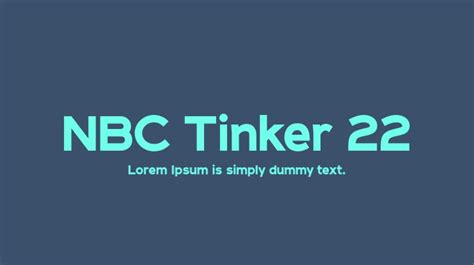
Nbc Tinker Font. Web nbc tinker glyphs (a) by. Nbc news now streamer ‘tinkers’ with its logo font.
Nbc news now streamer ‘tinkers’ with its logo font. Web nbc tinker glyphs (a) by. Web nbc news now streamer ‘tinkers’ with its logo font. Web the new logo switches to nbc tinker, the bespoke font inspired by sweet sans that nbc has been using as part of. The change appeared to happen the morning of nov. Nbc news now, nbc’s free news.
Web the new logo switches to nbc tinker, the bespoke font inspired by sweet sans that nbc has been using as part of. Web the new logo switches to nbc tinker, the bespoke font inspired by sweet sans that nbc has been using as part of. The change appeared to happen the morning of nov. Nbc news now, nbc’s free news. Web nbc news now streamer ‘tinkers’ with its logo font. Nbc news now streamer ‘tinkers’ with its logo font. Web nbc tinker glyphs (a) by.